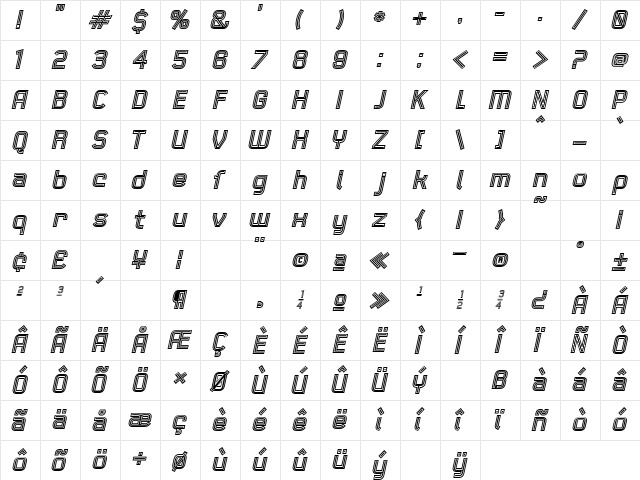
21st OutlineItalic Free Font
21st OutlineItalic
Style: OutlineItalic
Design Context for 21st
21st is built around its visual character rather than neutral utility - its distinctive forms are designed to make an impression at display sizes. The slanted form adds forward momentum and visual energy.